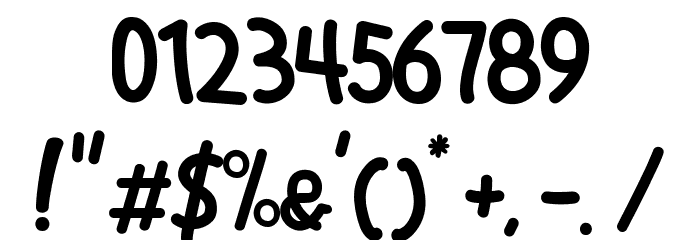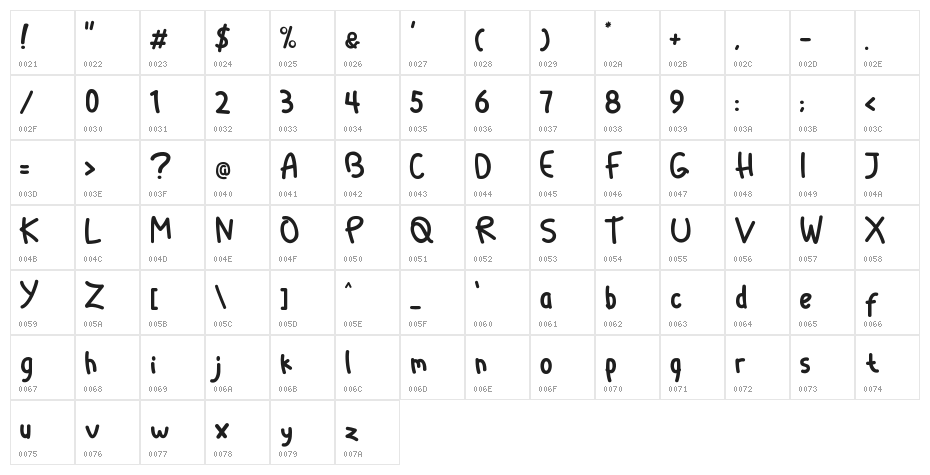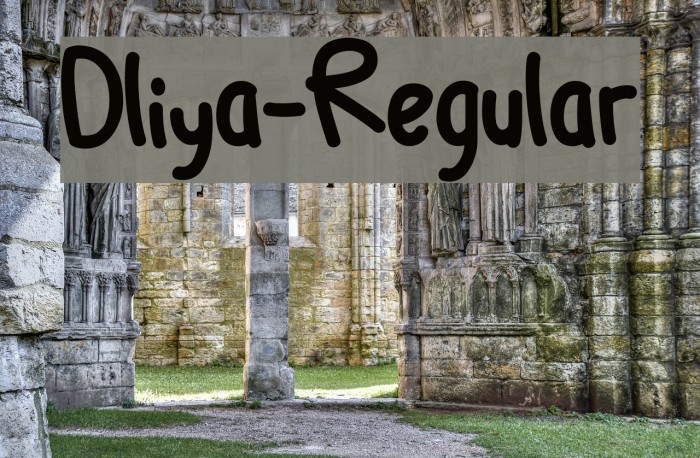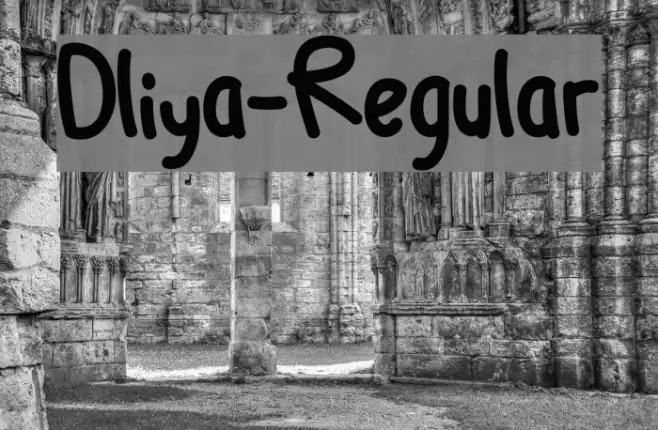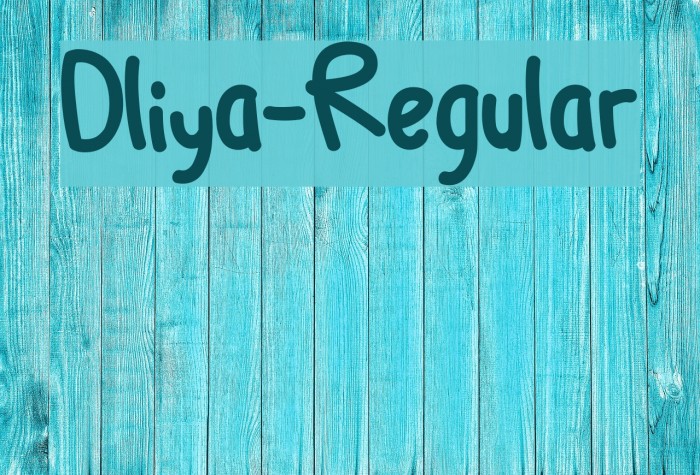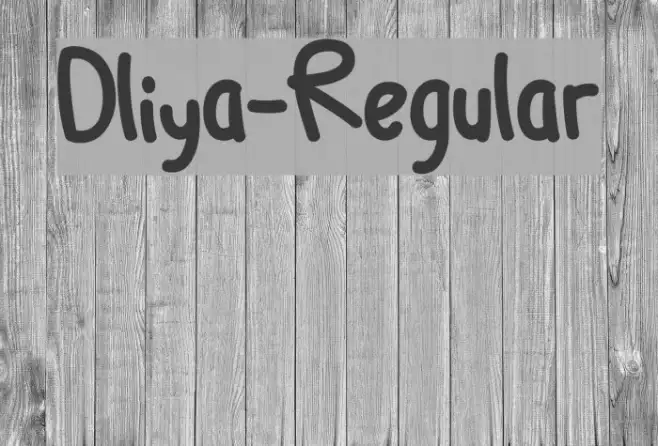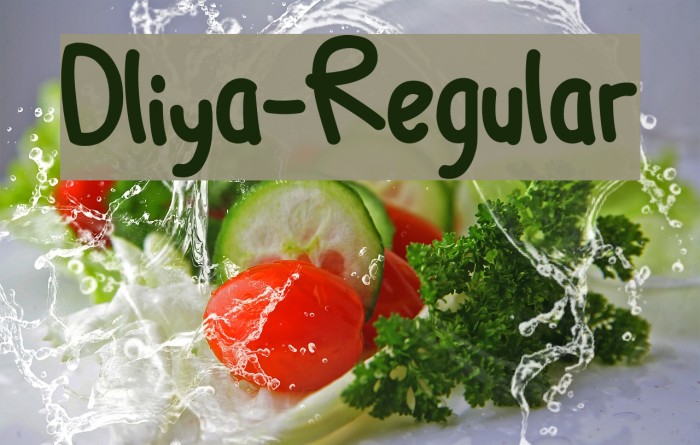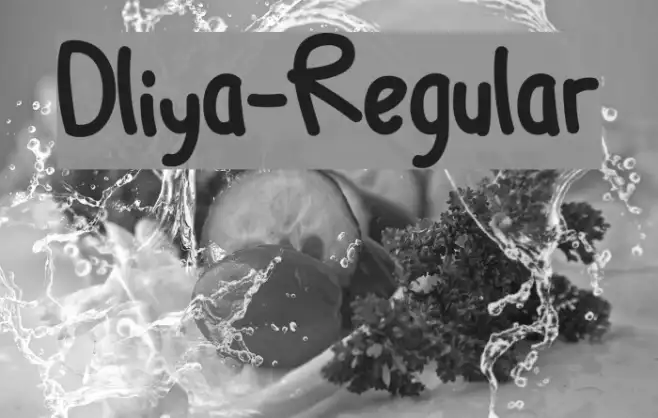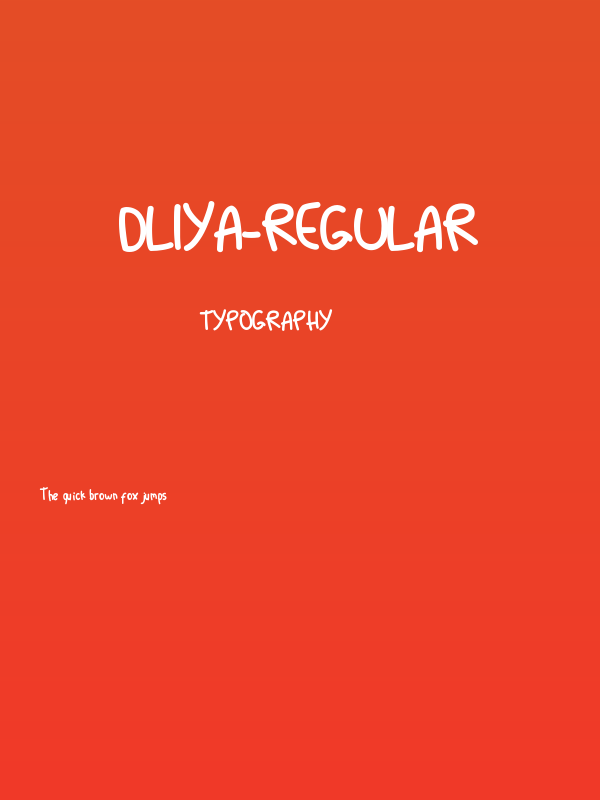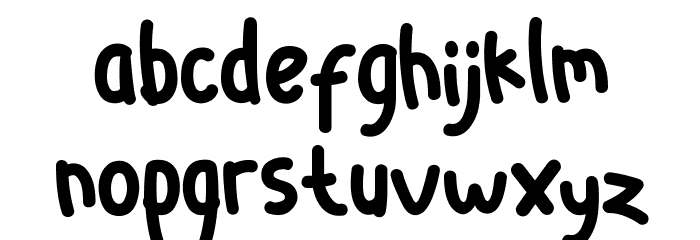
Dliya-Regular Font
Dliya-Regular Description
This playful and casual font features rounded, hand-drawn characters that convey a sense of friendliness and approachability. The letters are slightly irregular, giving them a whimsical and informal appearance. The strokes are consistent in thickness, contributing to a cohesive look across all characters. The font includes a full set of uppercase and lowercase letters, numbers, and a variety of special characters, making it versatile for different uses. Its organic and relaxed style makes it suitable for projects that aim to be inviting and personable.
| Proposed Projects | Ideal for children's books, greeting cards, casual branding, and social media graphics. |